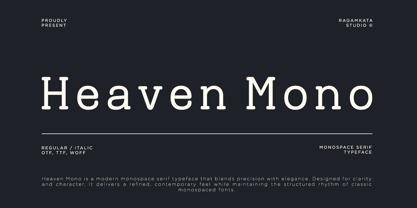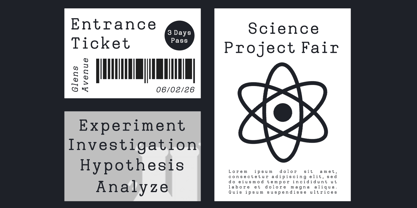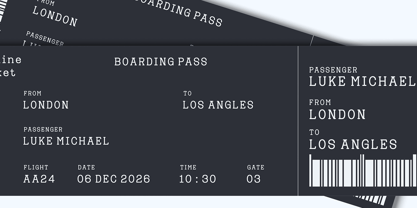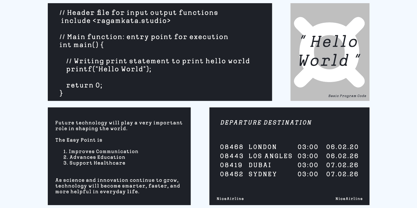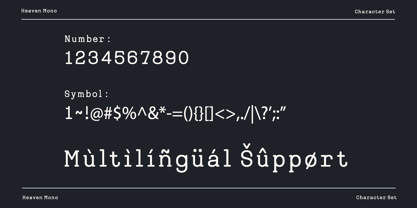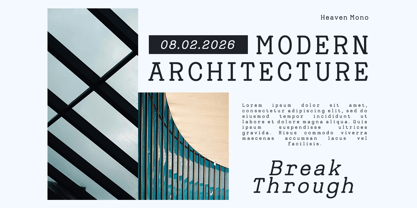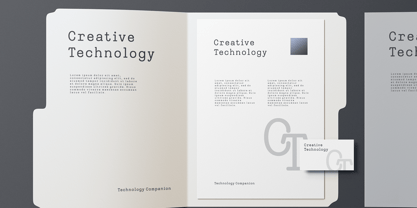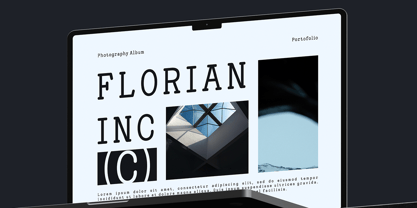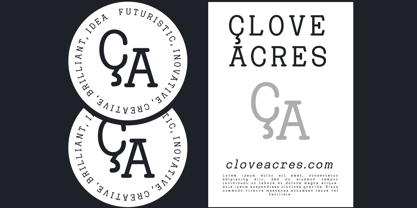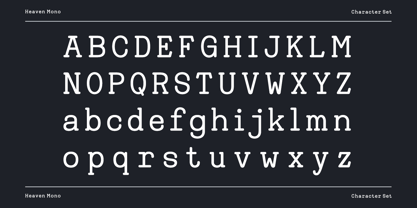
Heaven Mono
von RagamKata
Die Schriftfamilie Heaven Mono wurde von Yogiswhara Dio Prakoso Riadi entworfen und von RagamKata veröffentlicht. Heaven Mono enthält 2 Stile und Familienpaketoptionen. Mehr über diese Familie
Heaven Mono is a modern monospace serif typeface that masterfully combines technical precision with refined elegance. With its balanced proportions, sharp details, and subtle serif accents, this typeface creates a distinctive rhythm that feels both contemporary and timeless. The structured letterforms ensure strong visual consistency, while the elegant touch adds character and personality to every composition. Tailored for designers, developers, creative studios, and digital creators, Heaven Mono serves as a versatile typographic solution for modern design needs. It is ideal for coding interfaces, UI/UX design, branding systems, editorial layouts, posters, packaging, and experimental visuals. This font adapts seamlessly across both digital and print applications, delivering clarity, structure, and a strong aesthetic presence. Whether utilized for tech branding, software interfaces, futuristic layouts, minimalist posters, editorial projects, or modern identity systems, Heaven Mono enhances visual communication with its clean, confident, and contemporary style. Designed for projects that demand both precision and personality, this typeface harmonizes logic and creativity, making it an essential choice for impactful design. Thank You ! Ragamkata